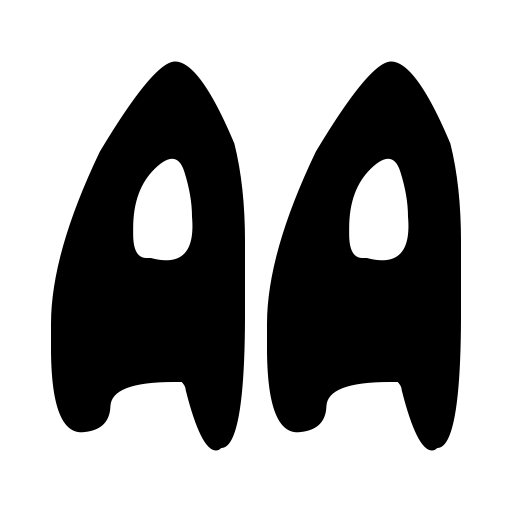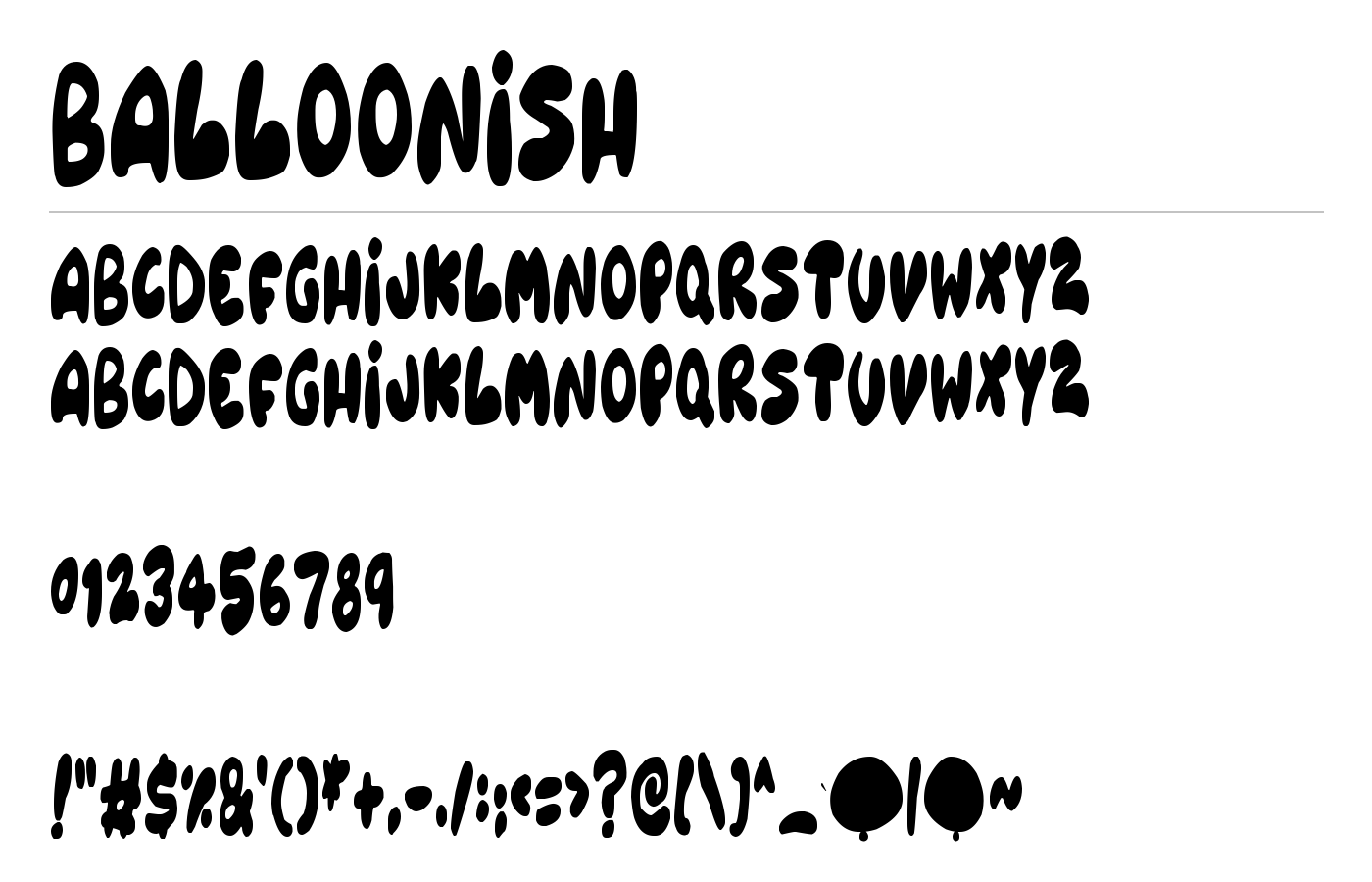
Balloonish is a playful, bold sans serif display font with rounded, bubbly letterforms that resemble inflated balloons. Its heavy weight and casual, friendly style make it perfect for fun, energetic branding, children's designs, party invitations, and informal headlines where an inviting and joyful mood is desired. The font’s quirky shapes and even spacing create a cheerful personality that stands out in any lighthearted visual project.
Balloonish Font